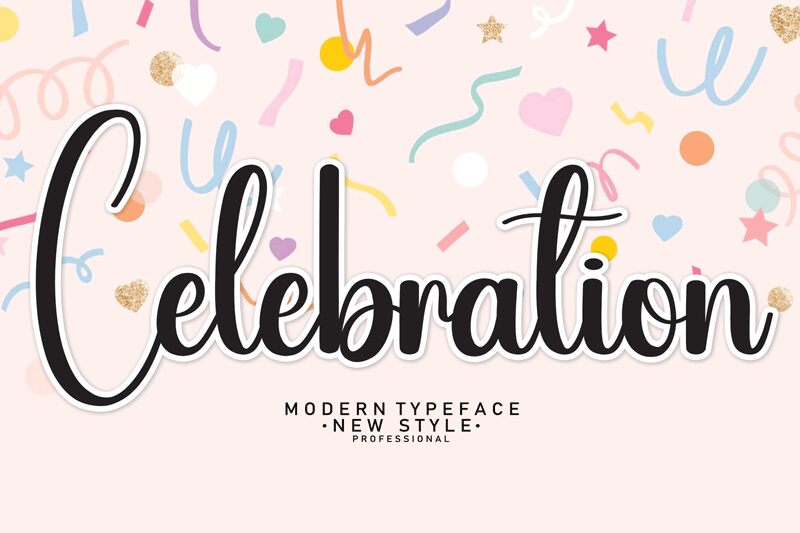
Celebration
Celebration by Scratchones brings a personal touch to any project with its handwritten style that radiates warmth and charm. Its fluid strokes and elegant curves evoke the spontaneity of ink on paper, while the condensed nature of the font adds a modern twist, allowing for impactful statements without taking up excessive space. This blend of classic handwriting with a sleek profile makes Celebration an ideal choice for invitations, greeting cards, and branding that require a signature look.
The font's inviting appeal lends itself beautifully to contexts where a sense of intimacy and festivity is desired. From boutique packaging to editorial headings in lifestyle magazines, Celebration invites readers into a world crafted with care and personality.